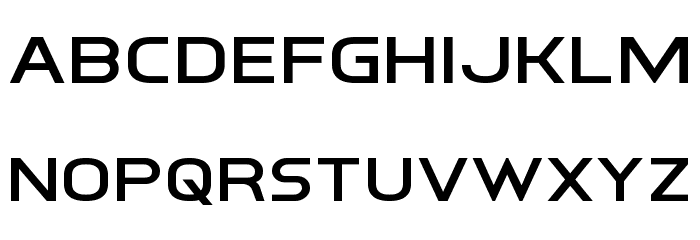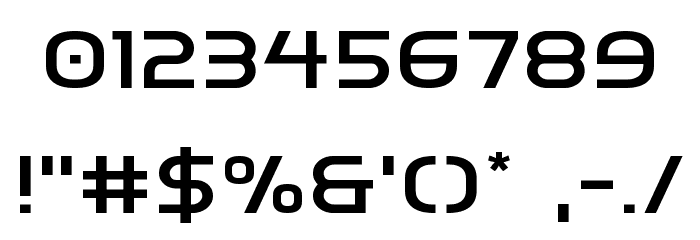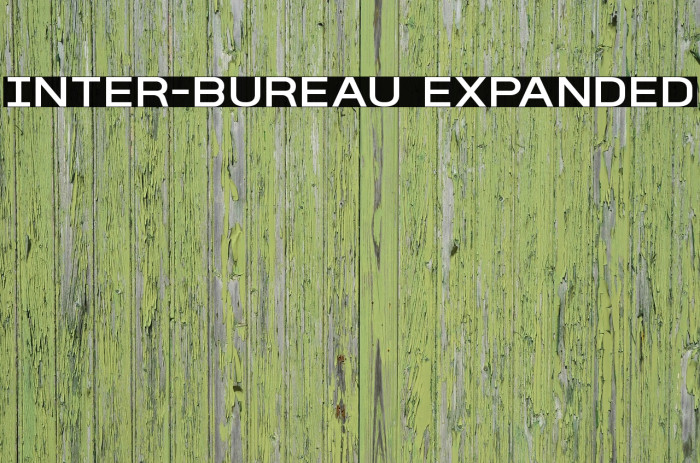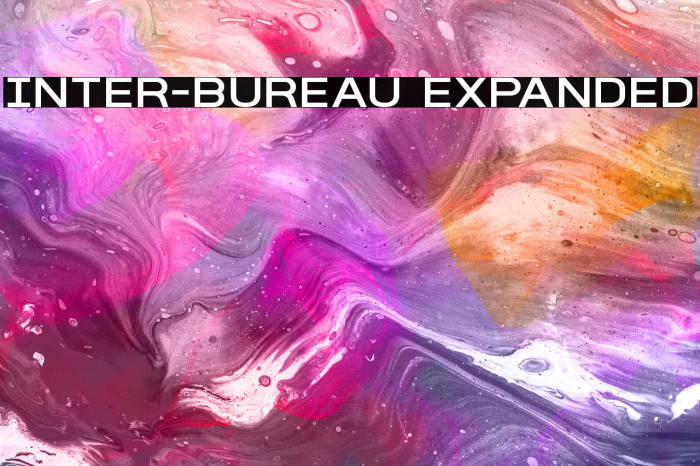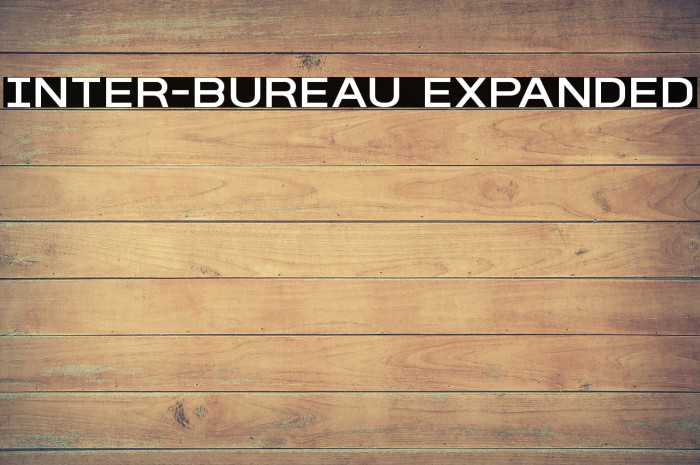
Inter-Bureau Expanded Font
This typeface features a modern, geometric design with clean lines and a structured appearance. The characters are uniform in width, contributing to a balanced and cohesive look. The uppercase letters are bold and assertive, while the lowercase letters maintain a consistent style, offering a harmonious blend of formality and approachability. The numerals are distinct and easy to read, making them suitable for various applications. Special characters are well-integrated, enhancing the font's versatility. Overall, this font exudes a contemporary and professional vibe, ideal for projects that require a sleek and polished aesthetic.
A modern, geometric typeface with clean lines and a structured appearance.
- Proposed Projects: Ideal for branding, corporate materials, digital interfaces, and editorial design.
- Use Case: Headlines, Logos, Digital Interfaces